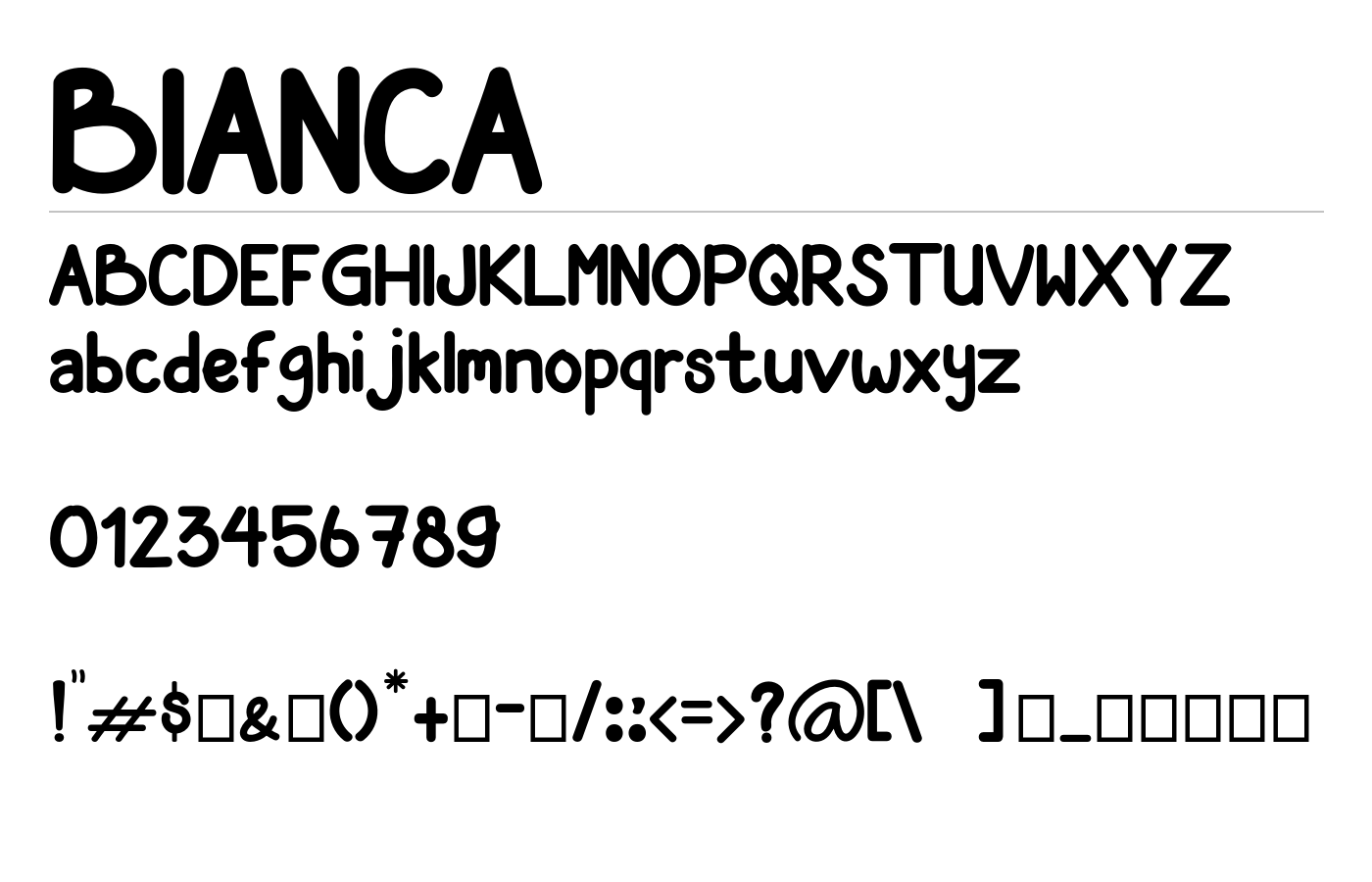
BIANCA is a playful, rounded sans serif font with a casual and friendly vibe. Its slightly irregular and hand-drawn letterforms, combined with a medium weight and open spacing, make it ideal for informal branding, children’s materials, and creative projects seeking a warm, approachable look. This font works best for headlines, logos, and packaging where a fun and inviting personality is desired.
BIANCA Font